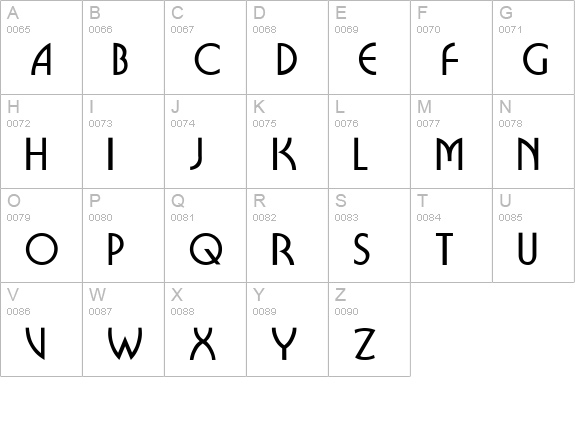
Brioche Display Caps SSi Font Details
Brioche Display Caps SSi font is a stylish and elegant typeface that exudes sophistication and charm. Its unique design features intricate details and sharp edges that make it stand out in any design project. The font is perfect for headlines, titles, and other display purposes, adding a touch of class and elegance to any text. What sets Brioche Display Caps SSi font apart is that it is available for free download at FontsMarket.com. This means that you can easily access this beautiful font and use it in your projects without any cost. Whether you're working on a branding project, a poster design, or any other creative endeavor, Brioche Display Caps SSi font will elevate your work and give it a touch of luxury. Don't miss out on the opportunity to enhance your designs with this stunning font. Download Brioche Display Caps SSi font for free today and take your projects to the next level!